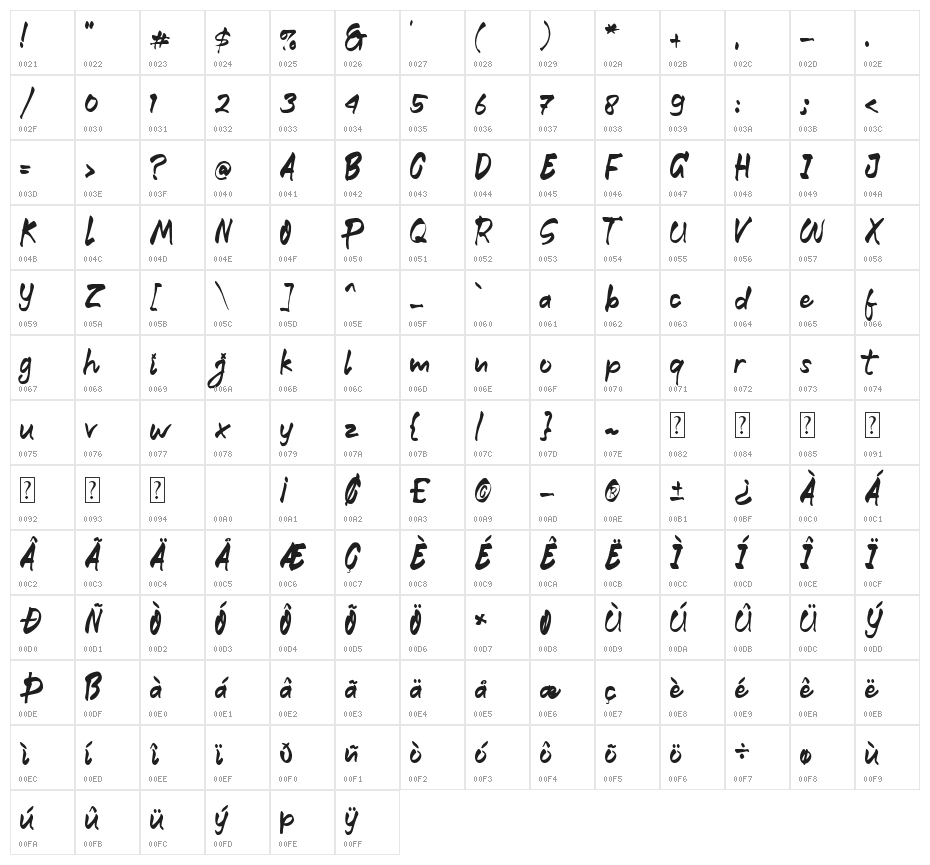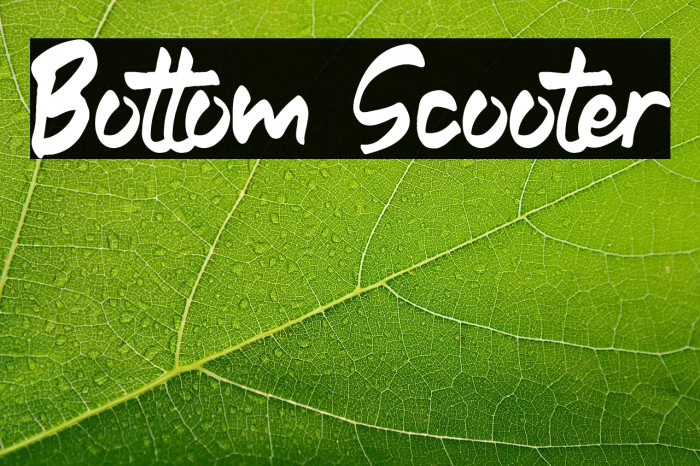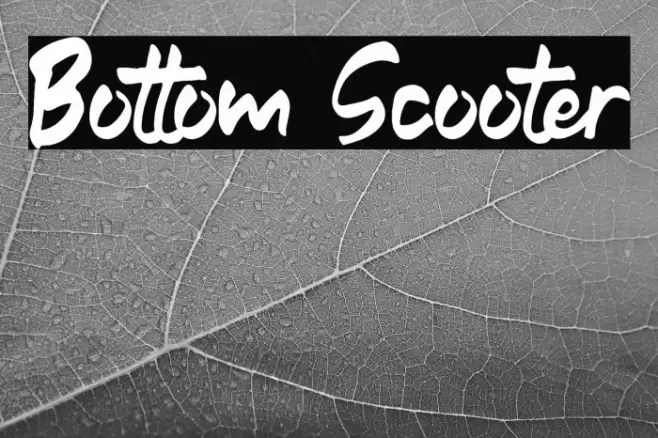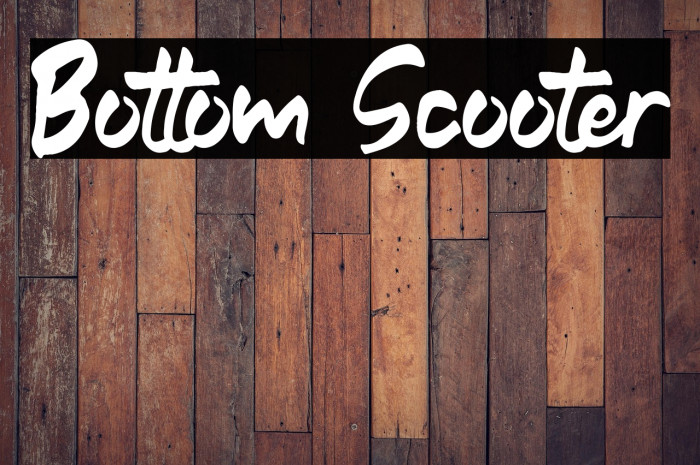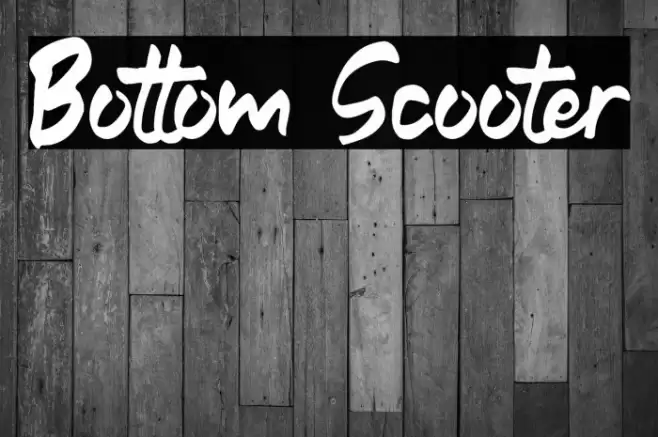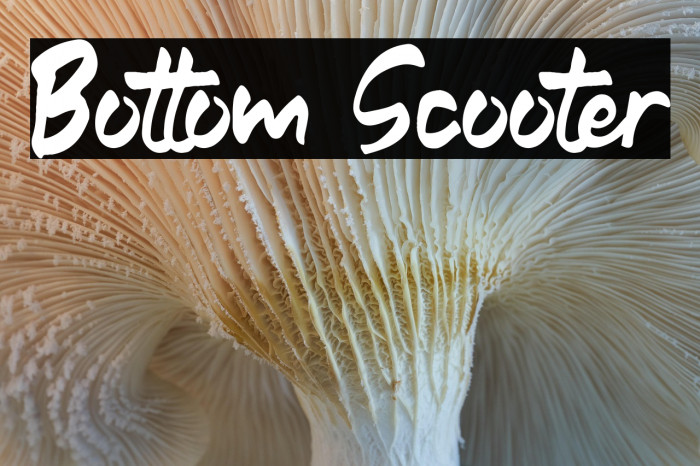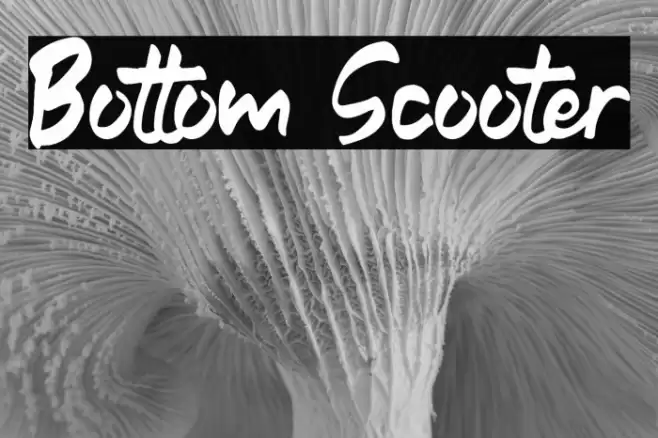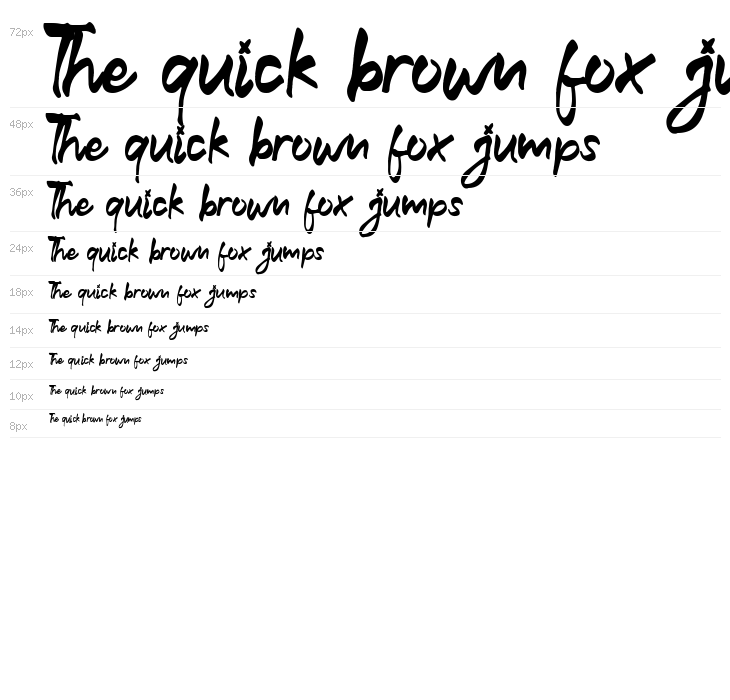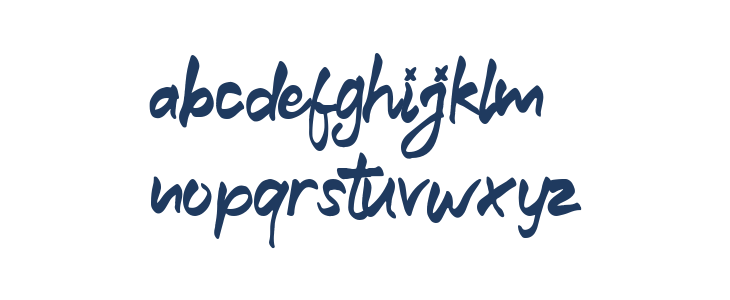
Bottom Scooter Font
Bottom Scooter Description
This font features a bold and expressive handwritten style, characterized by its dynamic and fluid strokes. The letters have a playful and energetic appearance, with varying thickness and a slightly irregular baseline that adds to its charm. The uppercase and lowercase letters are well-balanced, maintaining a consistent flow throughout. The numbers and special characters complement the overall aesthetic, making it suitable for creative and informal designs. Its unique style captures attention and conveys a sense of spontaneity and creativity.